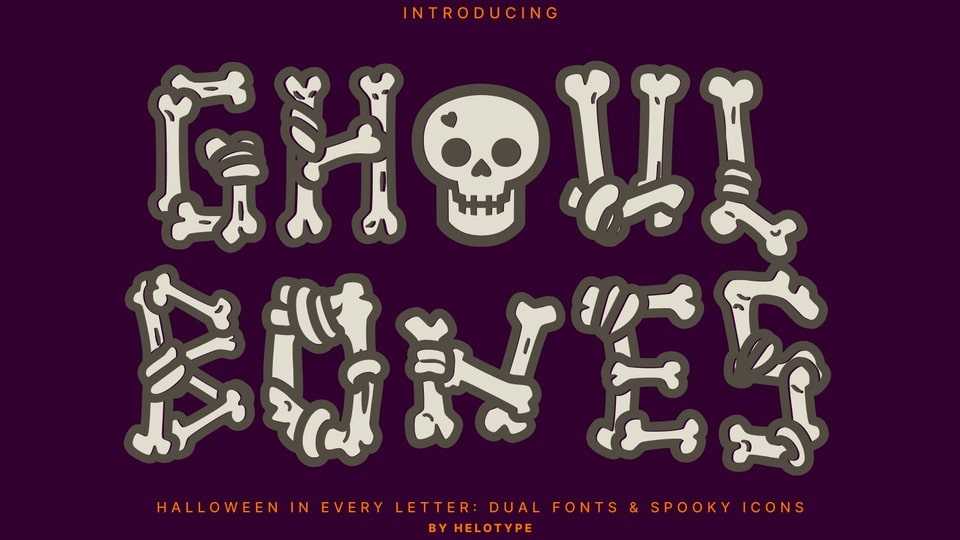
Download Ghoul Bones font, a bone-chilling typeface that offers endless possibilities for creating spooky and eye-catching graphics.
Designer: Helotype